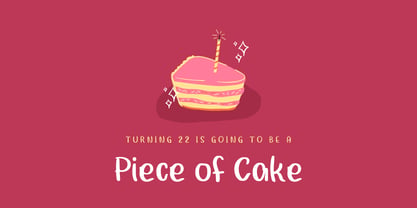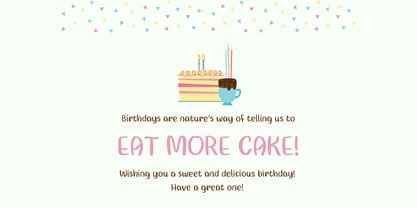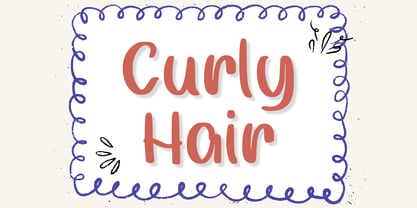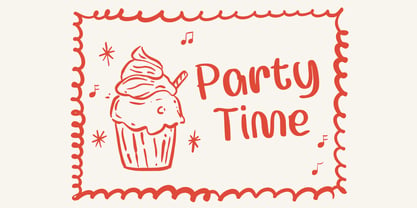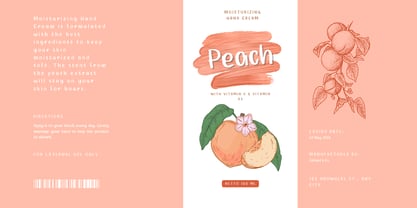
Curly Hairline
by Aisyah
The Curly Hairline Font Family was designed by Nur Aiysah Amalia and published by Aisyah. Curly Hairline contains 1 styles. More about this family
Experience the magic of our “Curly Hair” font, meticulously crafted to add a playful touch to your greeting cards and letters. This artistically charming font enhances your messages with its whimsical curls and soft, gentle lines. It’s an innovative twist on classic typography, seamlessly blending elegance with lightheartedness. This Curly Hair font is exceptionally versatile for greeting cards, scrapbooking, and educational materials where a rigid font would feel too cold. It pairs beautifully with hand-drawn doodles and watercolor textures. Use it to add a dash of personality to your “how-to” guides or to create a welcoming atmosphere for a community event flyer. It’s the typeface for when your design needs to give the audience a metaphorical hug. Perfect for adding a dash of joy and beauty to your design, the “Curly Hair” font is not just a choice; it’s a statement. Enrich your narrative with this irresistibly attractive, one-of-a-kind font!